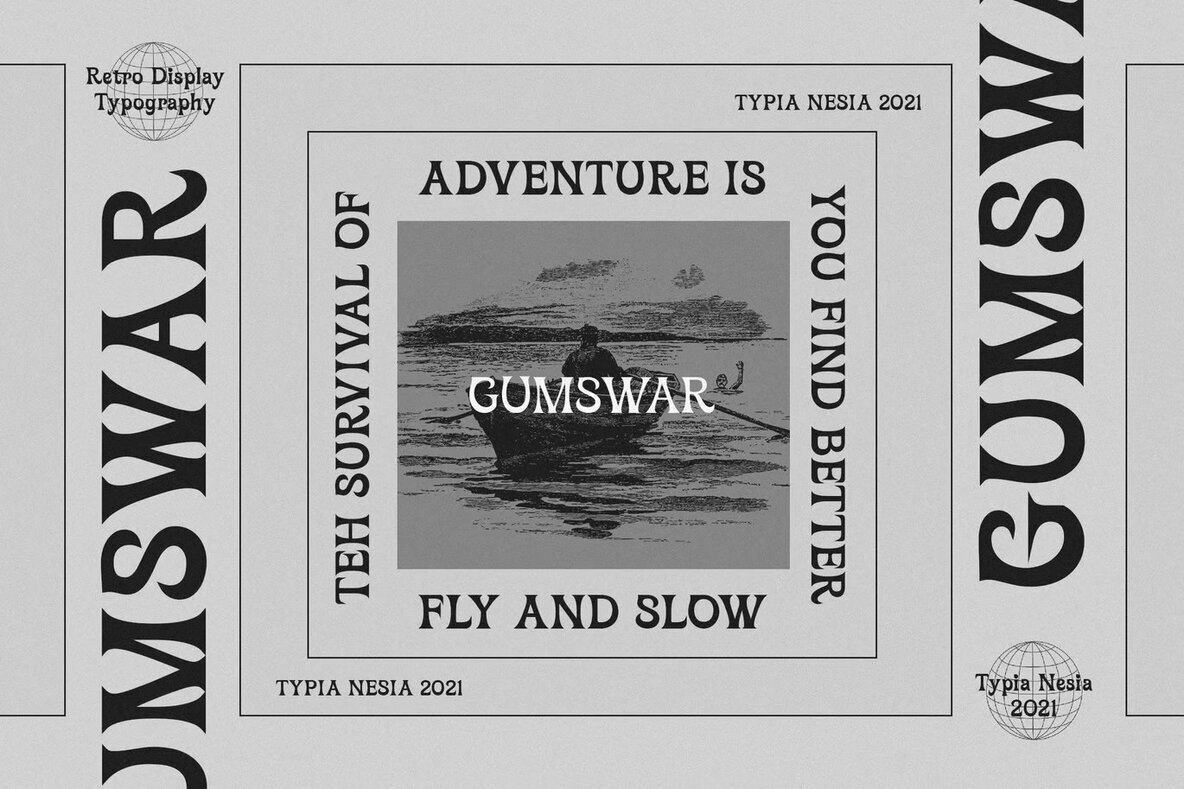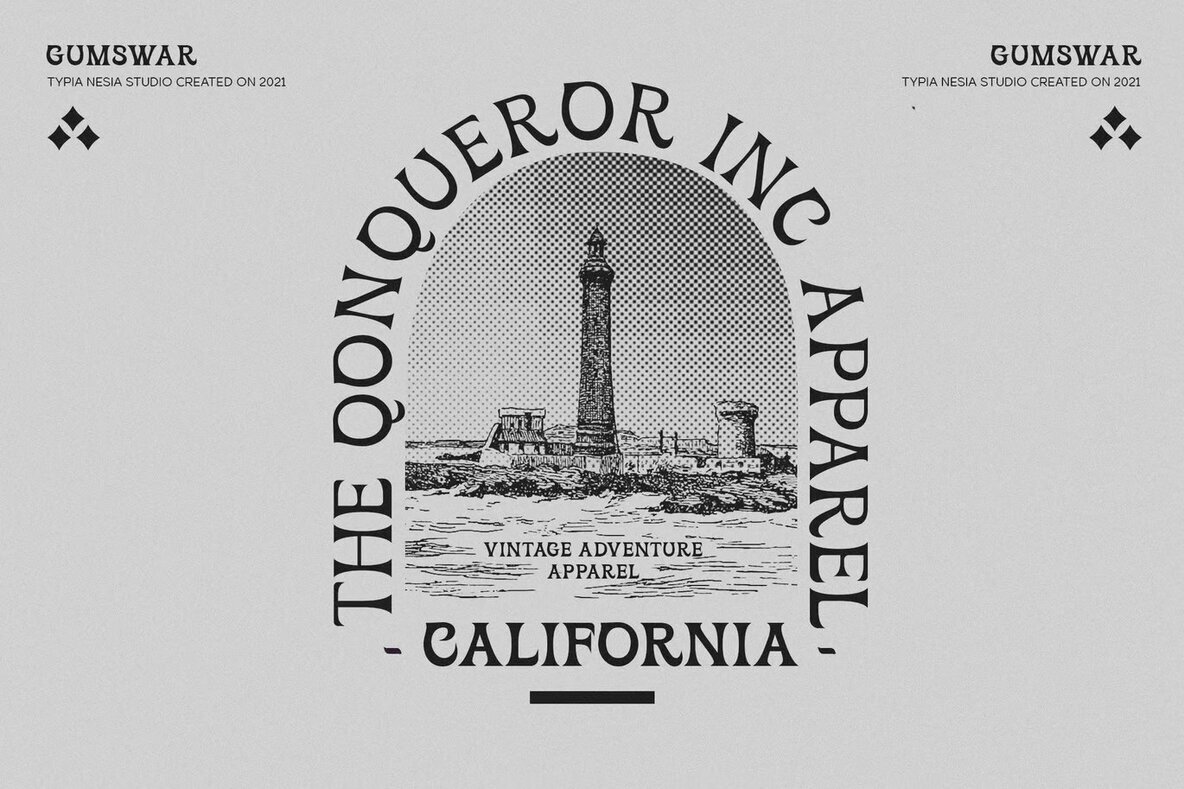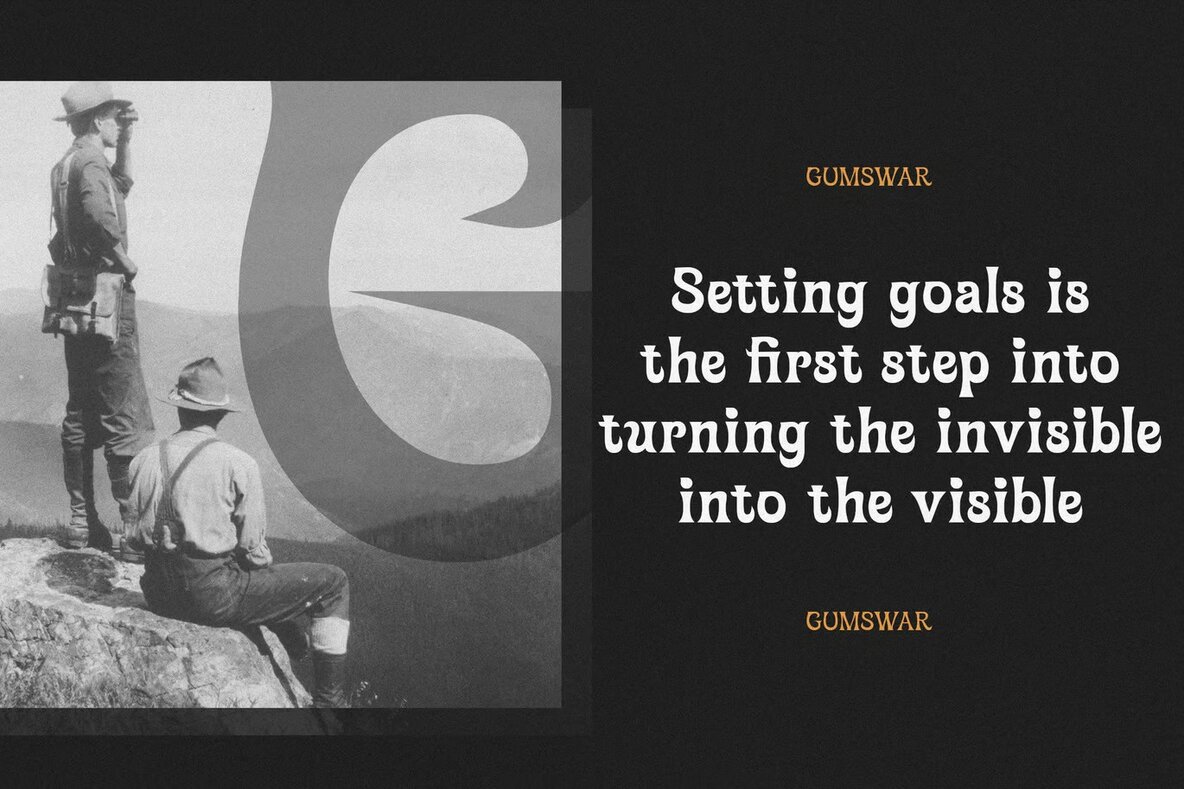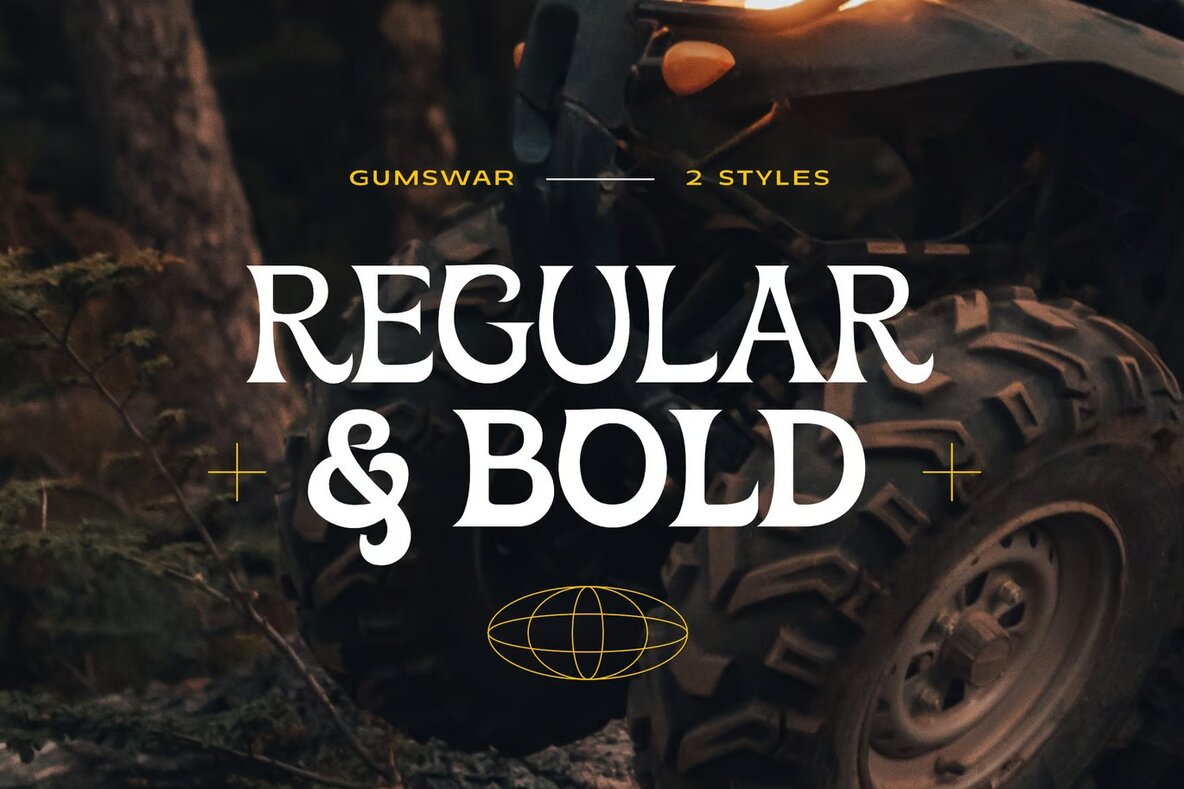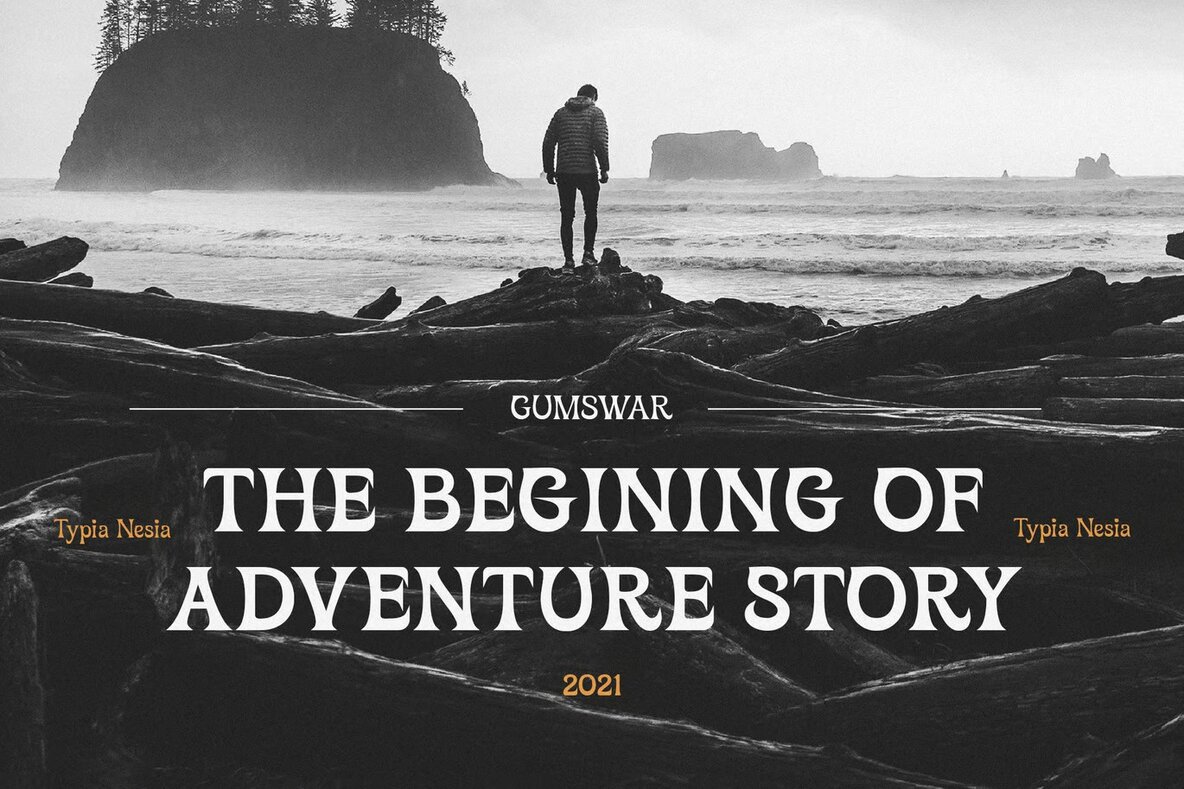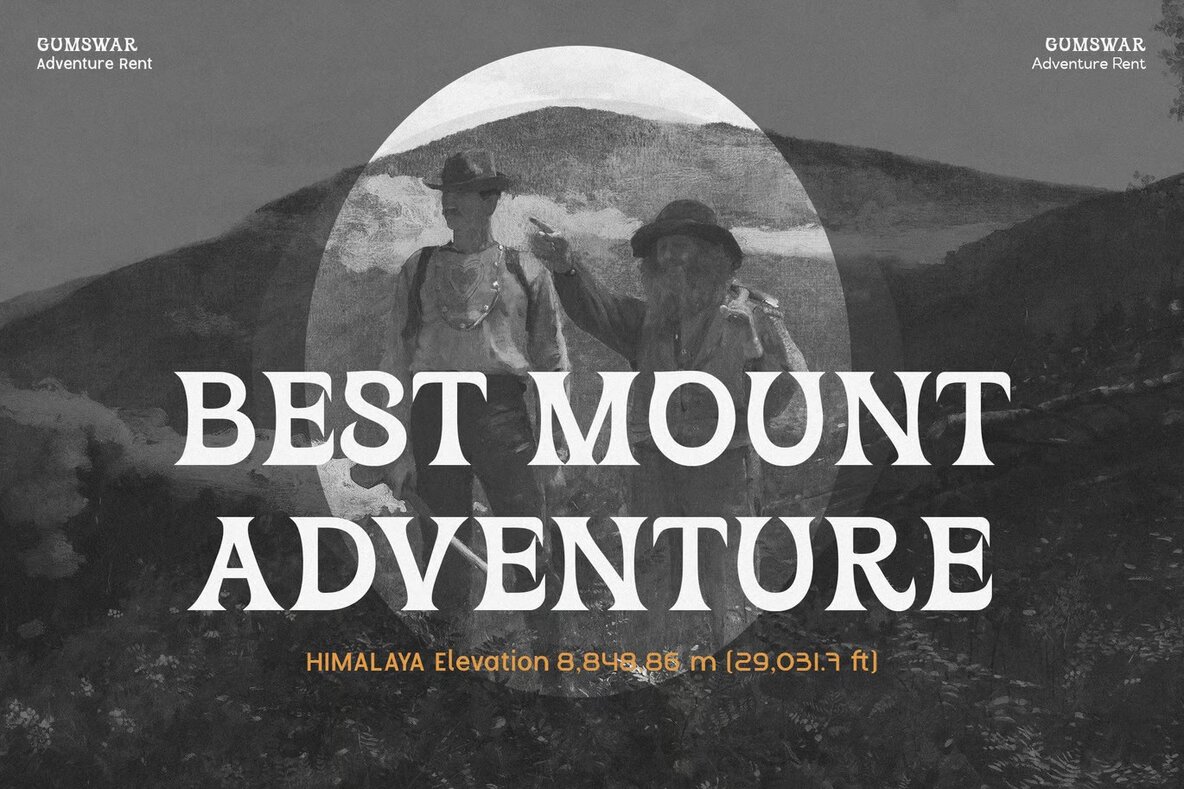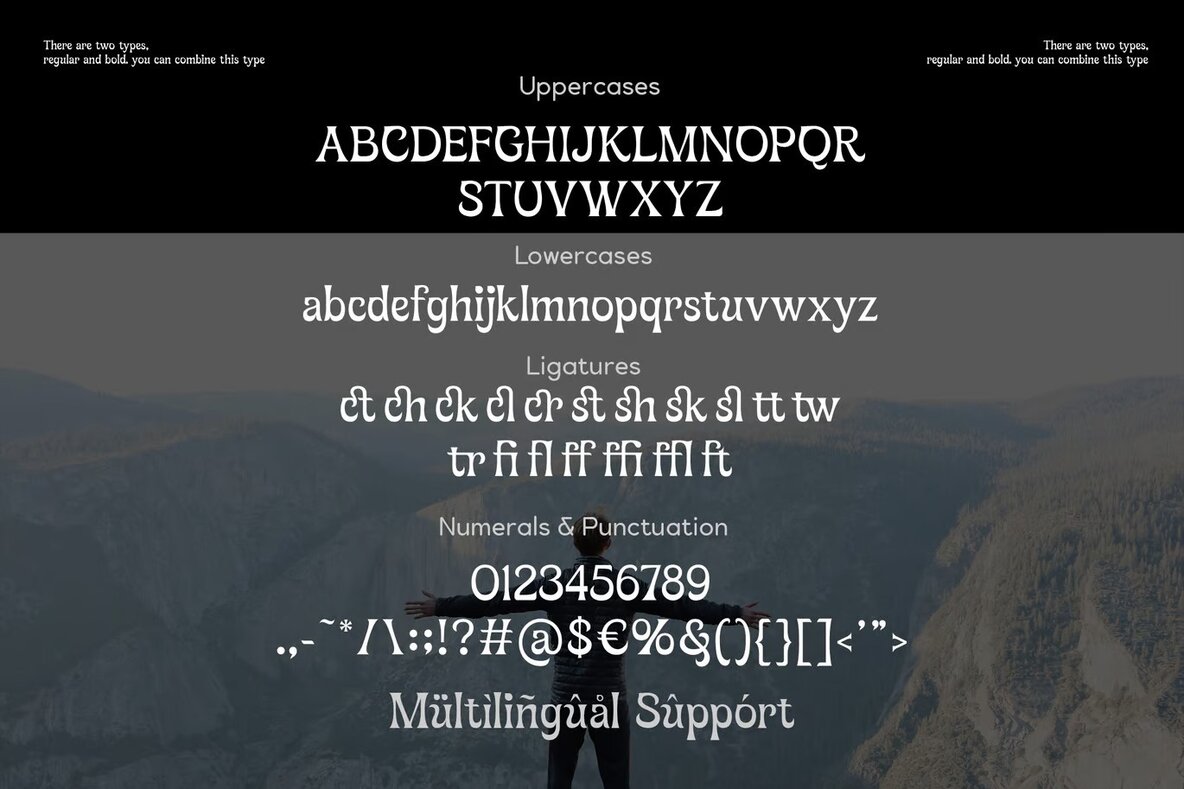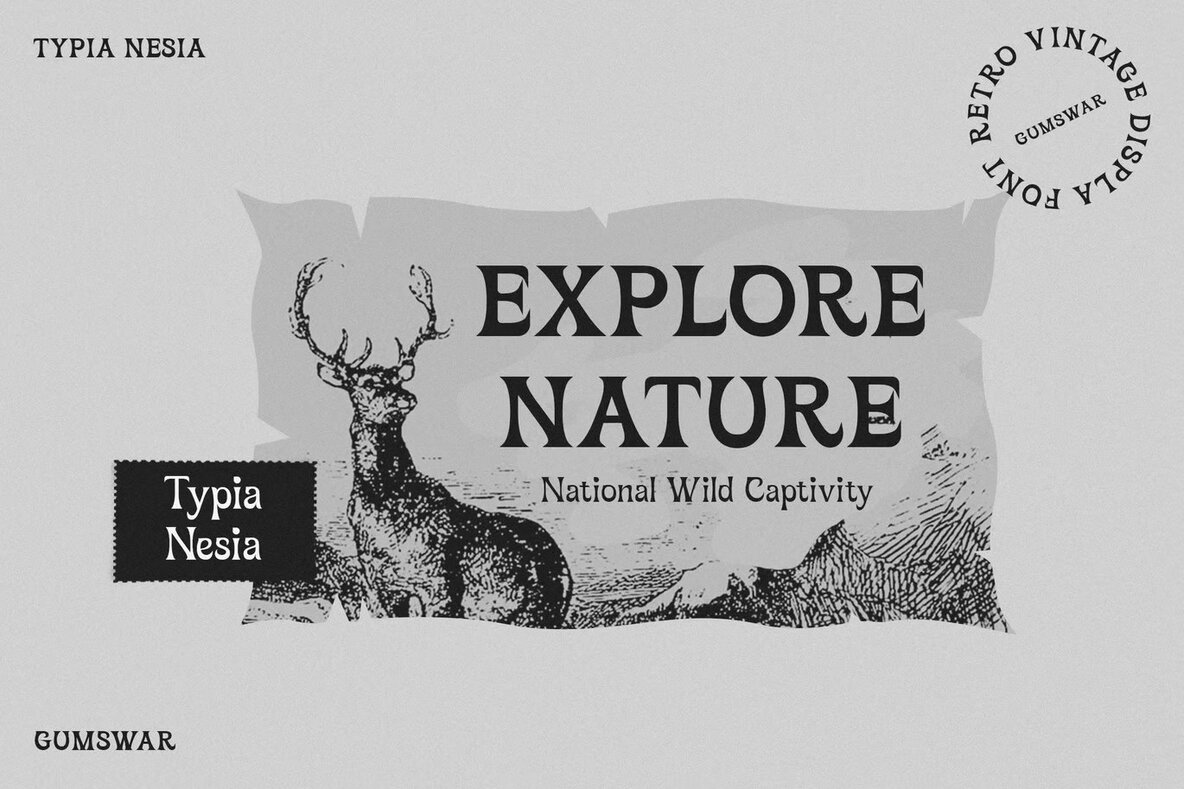
Gumswar Font
Gumswar is a versatile vintage and retro pop art display font, ideal for a wide range of design projects. Its distinctive style makes it perfect for creating eye-catching logos and branding materials, adding a unique flair to modern advertising designs, or giving a nostalgic touch to vintage garage themes. Whether you're working on an adventure or mountain hiking brand, designing hardcore music graphics, or crafting animation and movie projects, this font is designed to meet your creative needs.
Additionally, Gumswar excels in editorial design, making it a great choice for book and novel cover titles. It brings a retro vibe to summer poster quotes and is equally effective in enhancing website and blog visuals. Whether you are designing cards or exploring other creative ventures, this font provides the flexibility and impact you need.